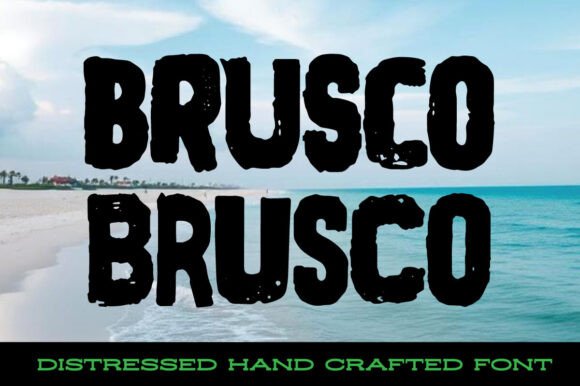
Brusco Font: Unleash the Power of Hand-Painted Typography
In the world of typography, few fonts manage to capture the essence of authentic brushwork as effectively as Brusco Font. This bold, hand-painted font is designed to bring a sense of artistry and individuality to your designs, making it perfect for creative projects that demand a unique touch. With its vibrant, textured style and two distinct sets of characters, Brusco adds variety and spontaneity to your designs, setting it apart from more conventional fonts.
What is Brusco Font?
Brusco Font is a bold, hand-painted font that captures the expressive and dynamic feel of authentic brushwork. Its unique design makes it an excellent choice for logos, headlines, posters, and creative projects that require a handcrafted touch. The font’s textured style gives it a distinctive look that is both eye-catching and engaging.
Key Features of Brusco Font
- Hand-painted design: Brusco Font features a hand-painted design that gives it a unique, artistic look.
- Two distinct sets of characters: The font includes two distinct sets of characters, adding variety and spontaneity to your designs.
- Vibrant, textured style: Brusco Font has a vibrant, textured style that brings a sense of artistry and individuality to any design.
- Perfect for creative projects: The font is ideal for logos, headlines, posters, and creative projects that demand a handcrafted touch.
Uses of Brusco Font
Brusco Font is a versatile font that can be used in a variety of creative projects. Here are some of the most popular uses of the font:
- Logo design: Brusco Font is perfect for creating unique and eye-catching logos that stand out from the crowd.
- Headlines and titles: The font’s bold, hand-painted design makes it an excellent choice for headlines and titles that require a creative touch.
- Poster design: Brusco Font is ideal for creating posters that demand attention and have a unique, artistic look.
- Creative projects: The font can be used in a variety of creative projects, such as brochures, flyers, and social media graphics.
Benefits of Using Brusco Font
There are several benefits to using Brusco Font in your designs. Here are some of the most significant advantages:
- Unique and eye-catching: Brusco Font has a unique, hand-painted design that is sure to grab attention.
- Versatile: The font can be used in a variety of creative projects, from logos to posters.
- Easy to read: Despite its bold, textured style, Brusco Font is easy to read and understand.
- Customizable: The font comes with two distinct sets of characters, allowing you to customize your designs and add variety.
Tips for Using Brusco Font
Here are some tips for using Brusco Font effectively in your designs:
- Use it sparingly: Brusco Font is a bold font, so use it sparingly to avoid overwhelming your designs.
- Pair it with a simple font: Pair Brusco Font with a simple font to create contrast and add visual interest.
- Experiment with colors: The font’s textured style looks great with a variety of colors, so experiment to find the perfect combination.
- Pay attention to legibility: Make sure to adjust the font size and style to ensure legibility, especially when using it for body text.
In conclusion, Brusco Font is a bold, hand-painted font that captures the expressive and dynamic feel of authentic brushwork. With its vibrant, textured style and two distinct sets of characters, Brusco adds variety and spontaneity to your designs, making it perfect for logos, headlines, posters, and creative projects that demand a handcrafted touch. By following the tips outlined above, you can use Brusco Font to create unique and eye-catching designs that stand out from the crowd.